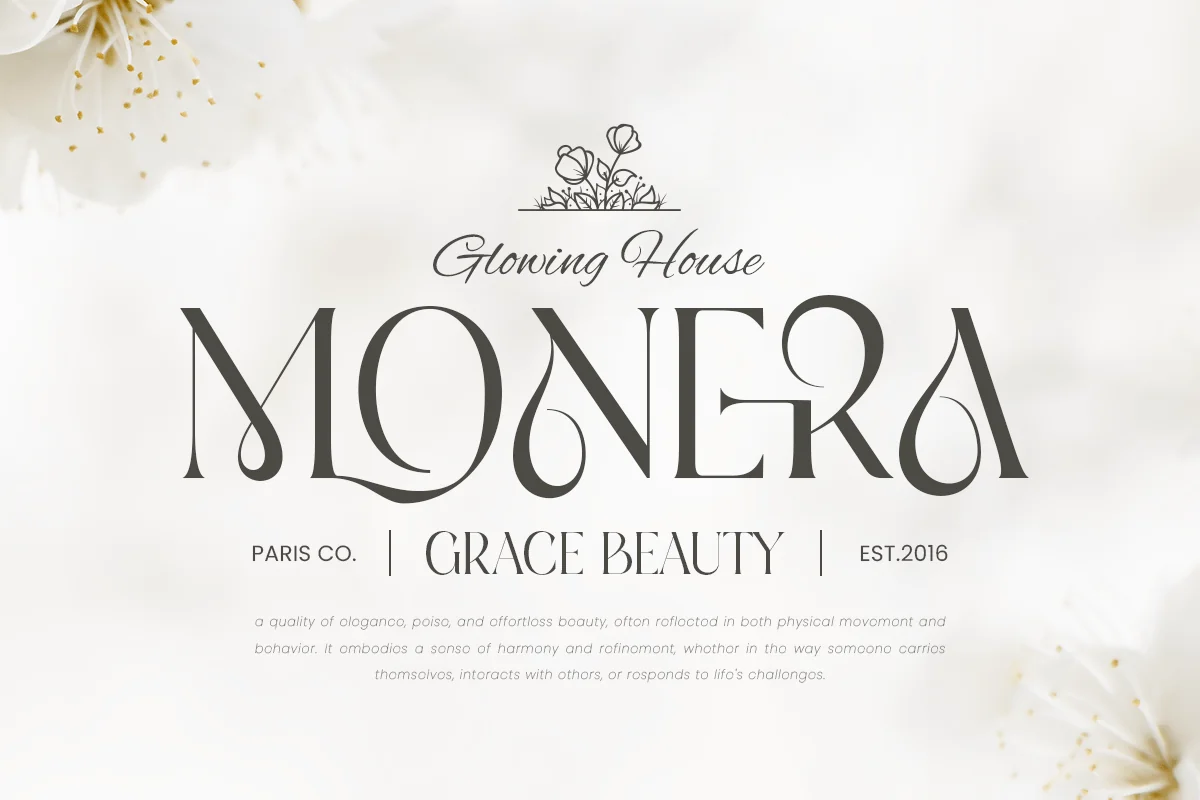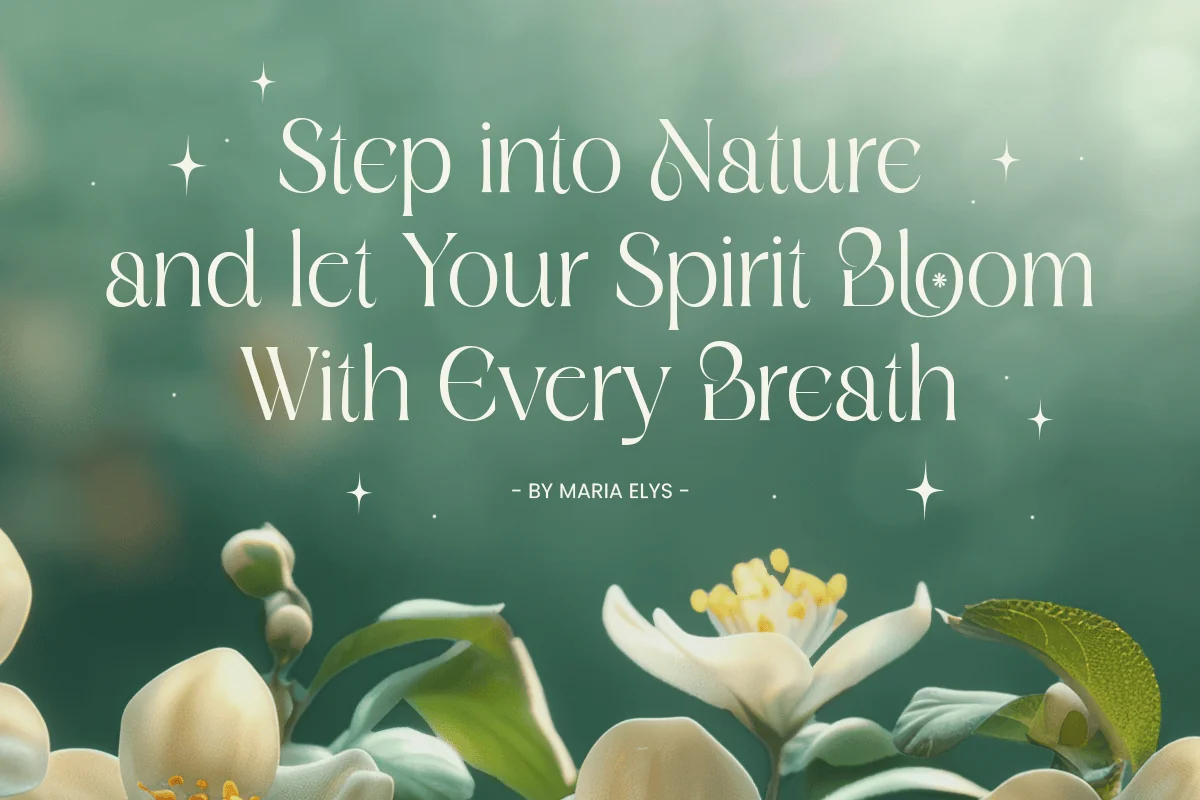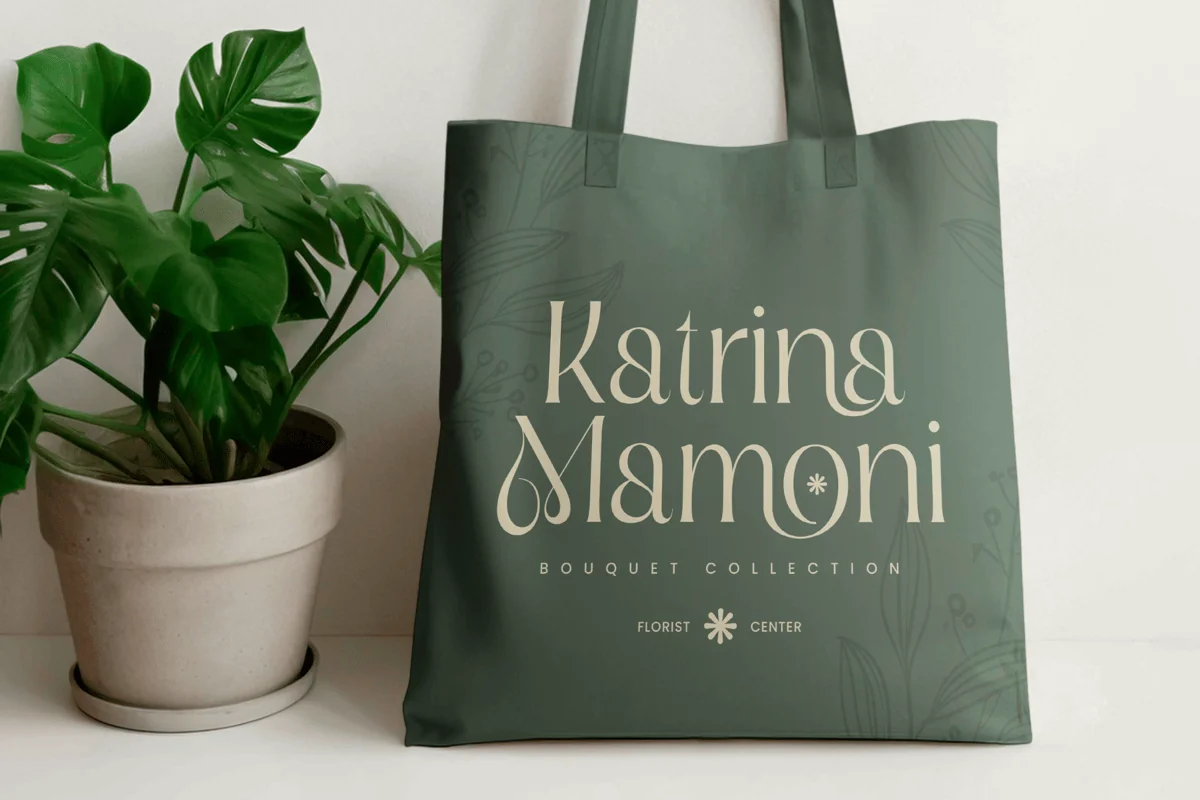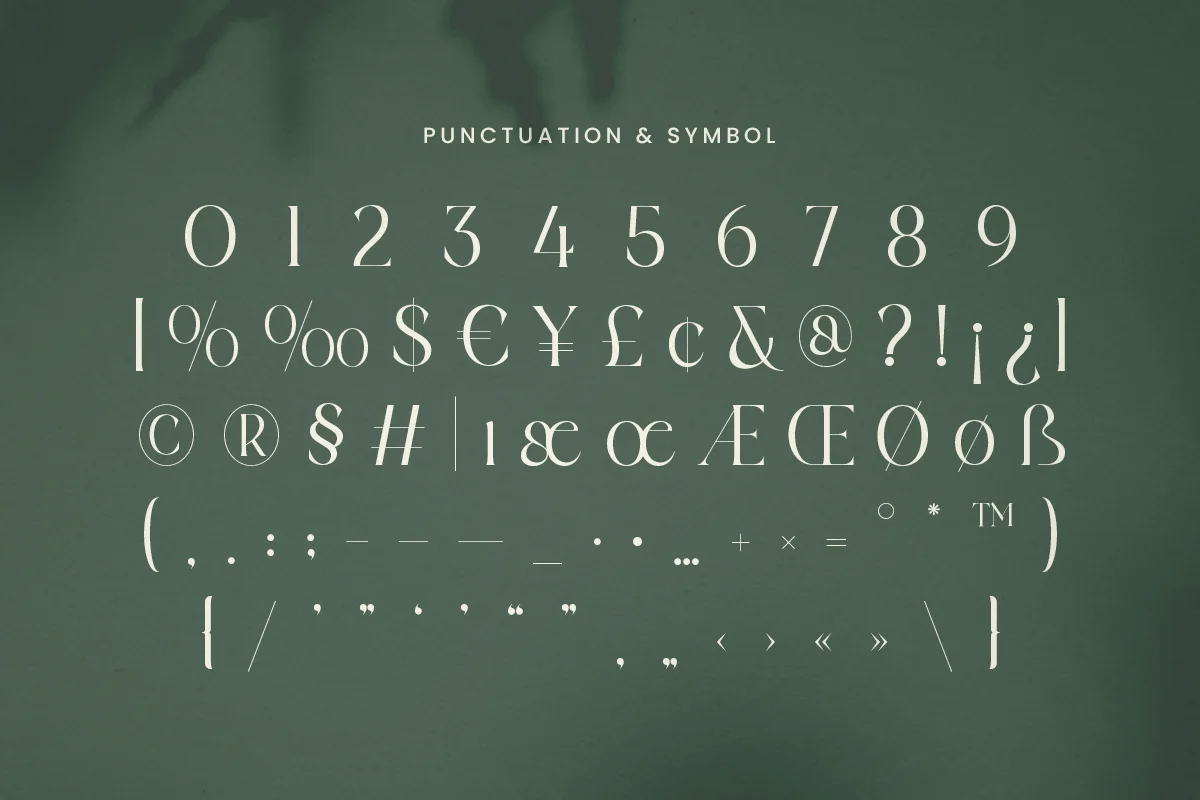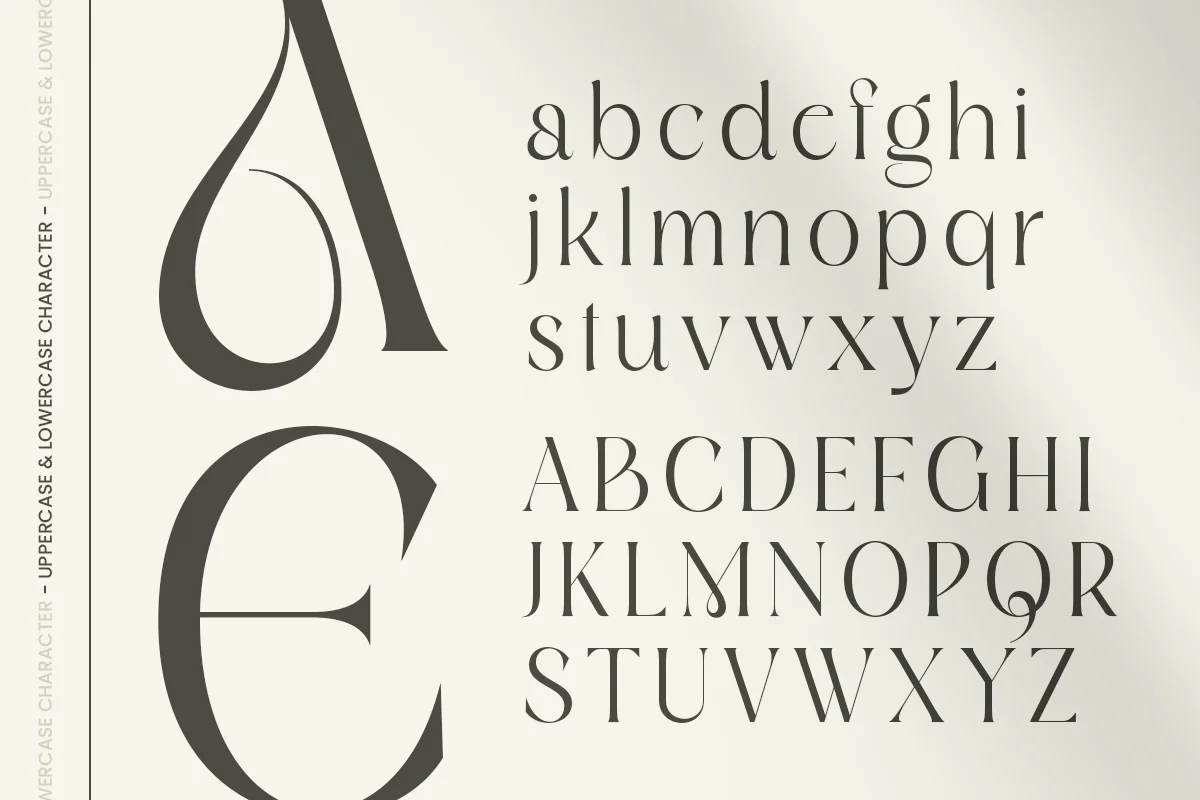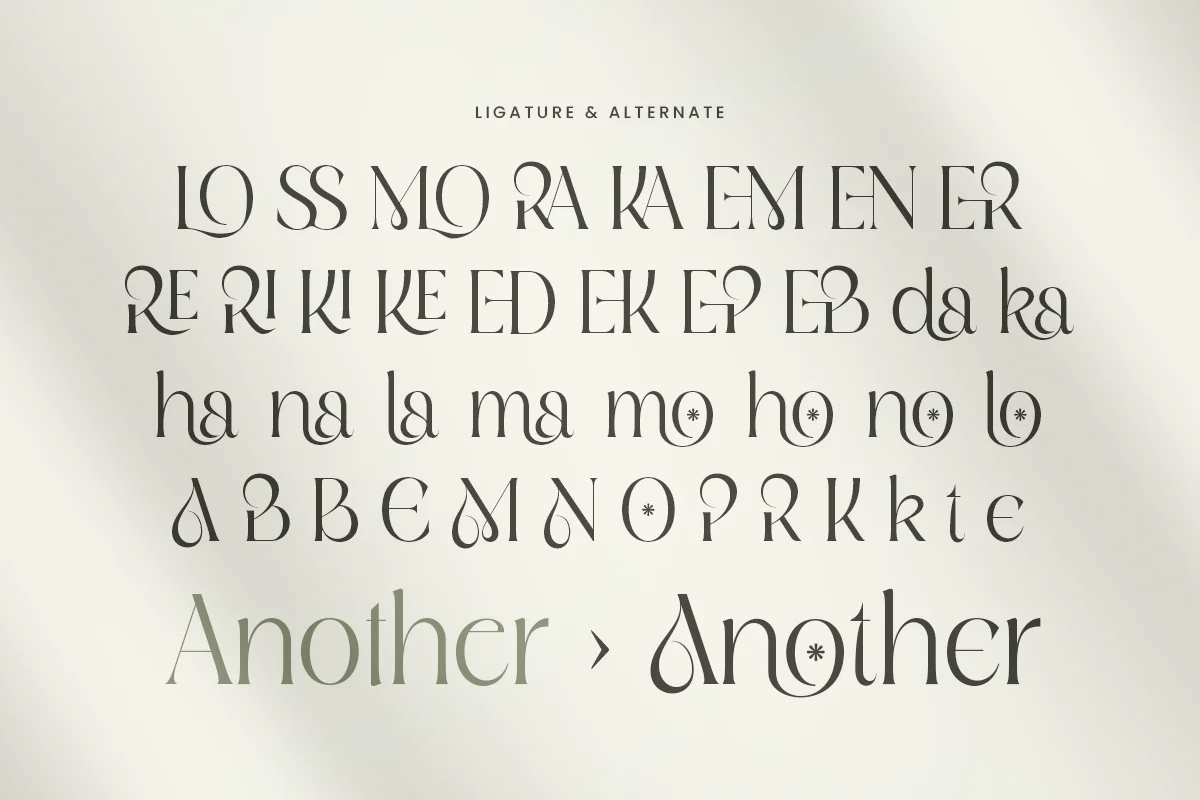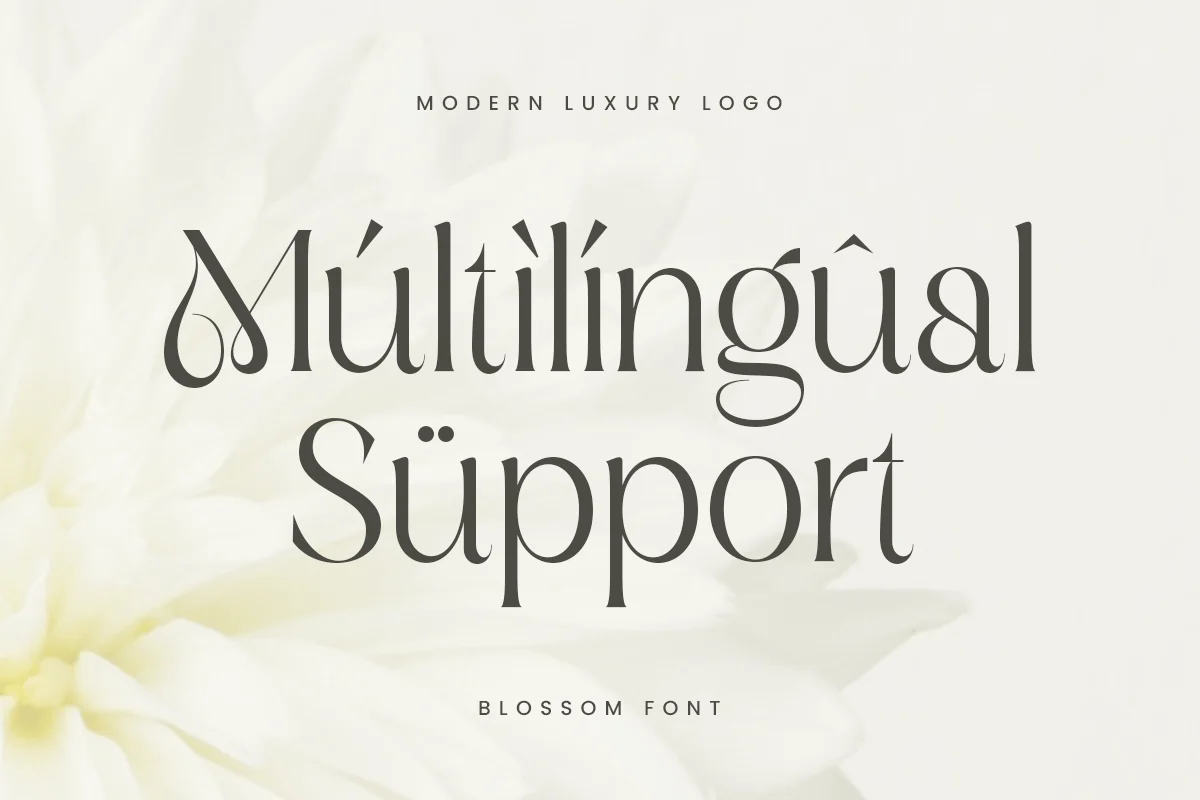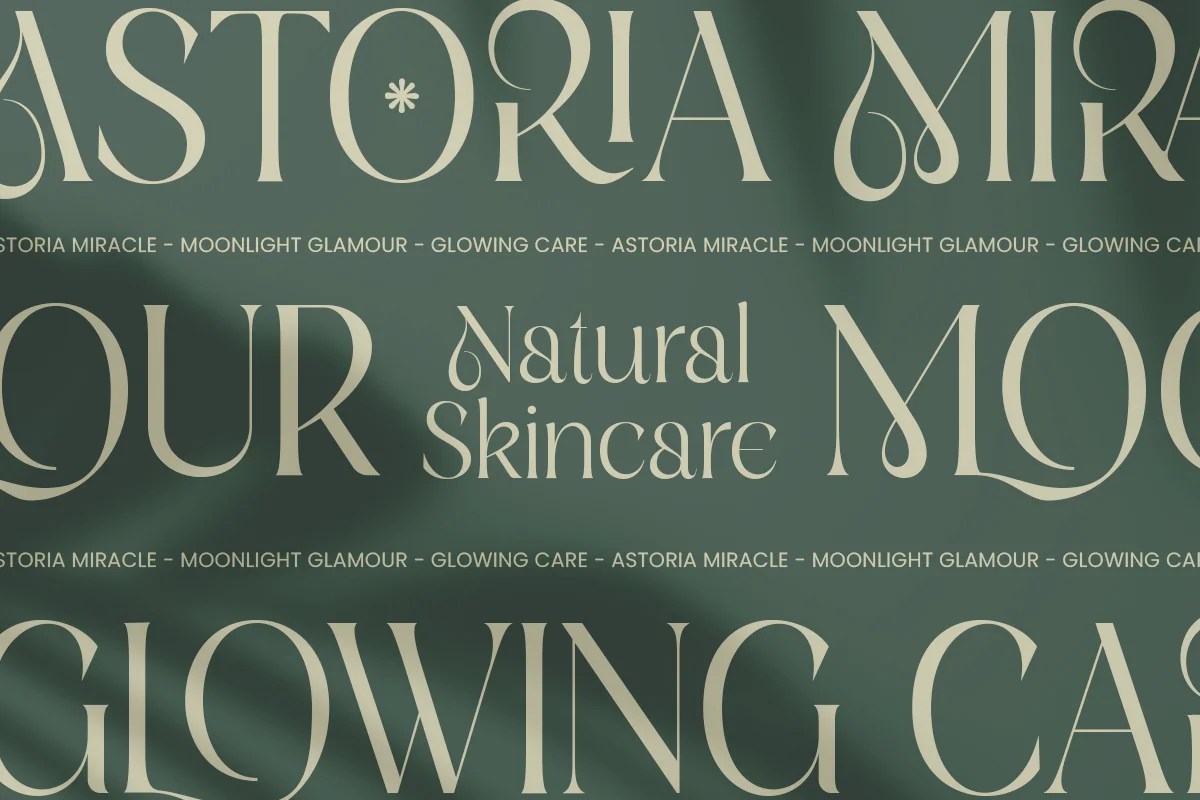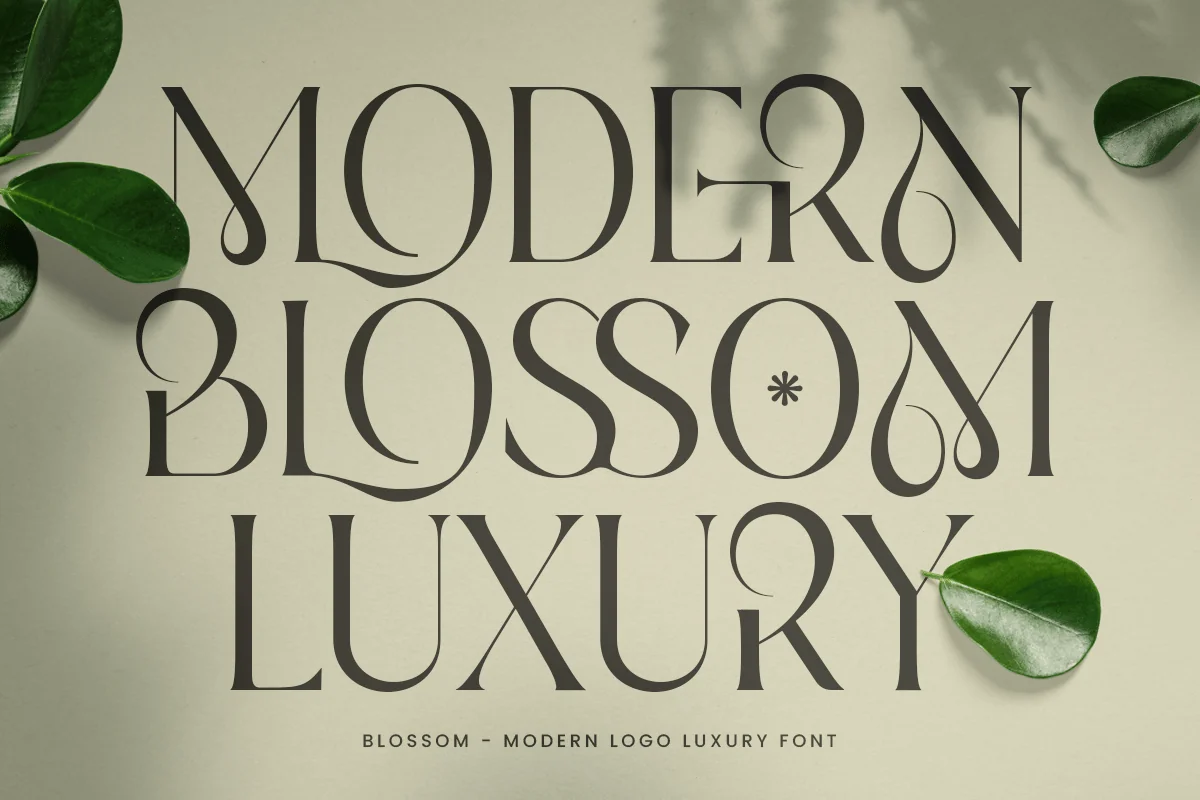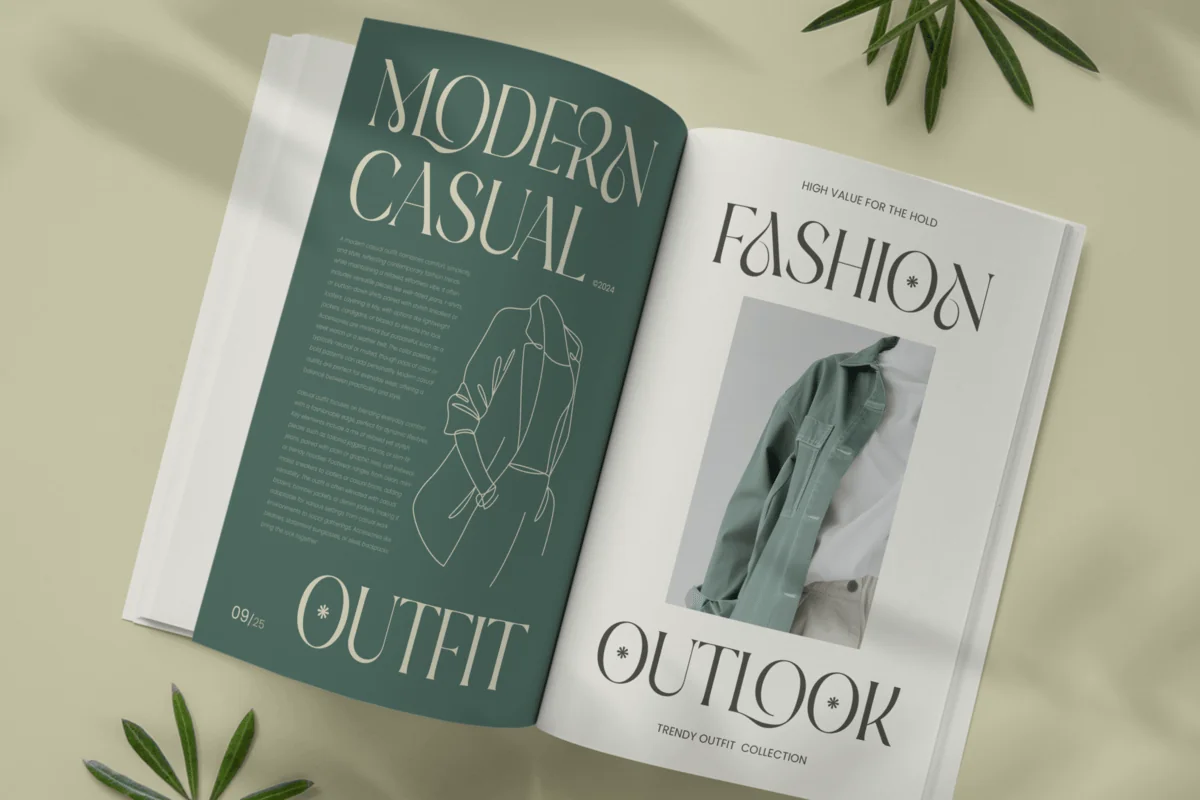
Blossom – Modern Logo Luxury Font
A Font That Blooms with Elegance
Blossom is a modern logo luxury font that exudes charm and sophistication. Its refined lines and harmonious shapes make it a perfect choice for creating designs that are both stylish and memorable.
Ideal for Upscale Branding
From luxury logos to elegant product packaging, Blossom is crafted for projects that require a touch of class. It brings a balance of modern simplicity and artistic flair, ensuring your designs stand out with grace.
Empower Creativity with Versatility
Blossom offers a seamless blend of luxury and modernity, giving designers the tools to create timeless masterpieces. Perfect for branding, fashion, and editorial projects, it’s a font that speaks sophistication.
Blossom Modern Logo Luxury Font Features:
- Alternates & Ligature Characters Ready
Multilingual Characters available for:
Afrikaans, Albanian, Asu, Basque, Bemba, Bena, Breton, Chiga, Cornish, Dutch, English, Estonian, Filipino, Finnish, Friulian, Galician, German, Gusii, Indonesian, Irish, Italian, Kabuverdianu, Kalenjin, Kinyarwanda, Luo, Luxembourgish, Luyia, Machame, Makhuwa-Meetto, Makonde, Malagasy, Manx, Morisyen, North Ndebele, Nyankole, Oromo, Portuguese, Quechua, Romansh, Rombo, Rundi, Rwa, Samburu, Sango, Sangu, Scottish Gaelic, Sena, Shambala, Shona, Soga, Somali, Spanish, Swahili, Swedish, Swiss.